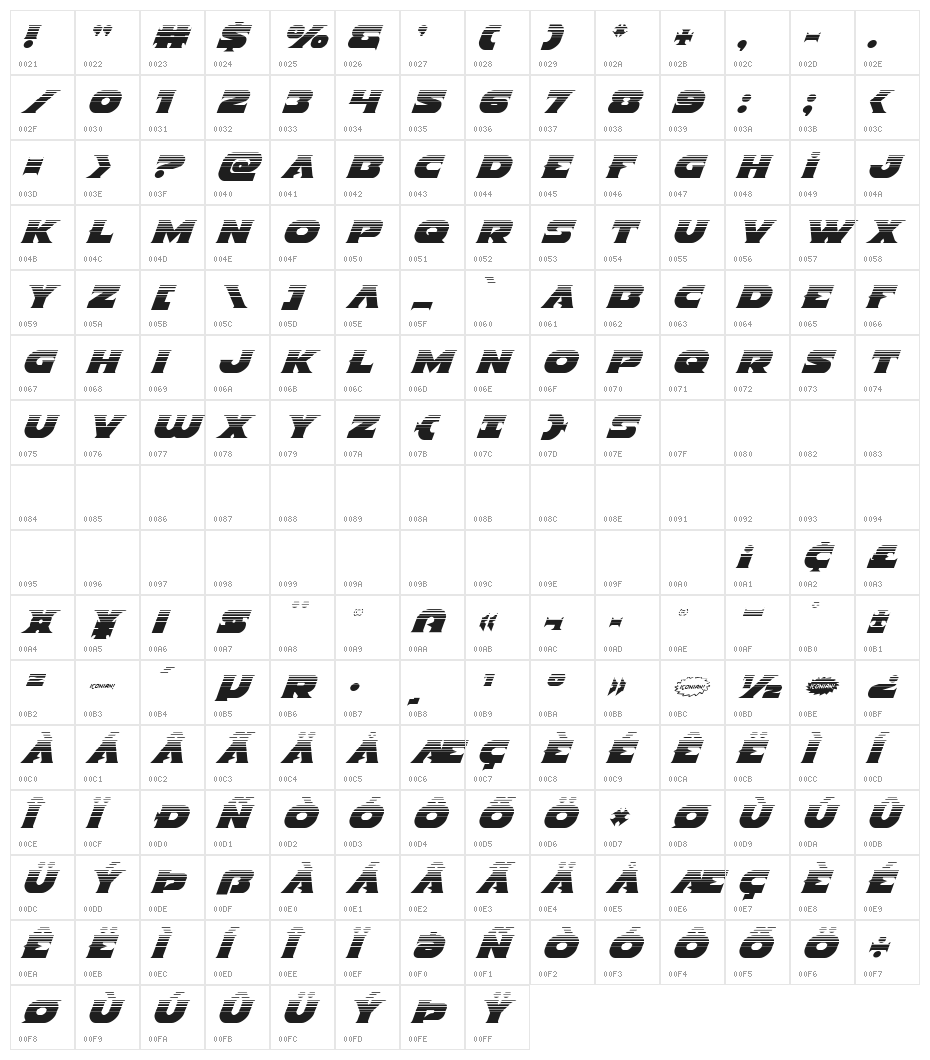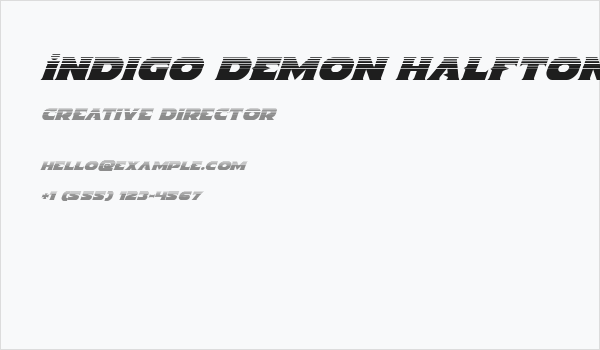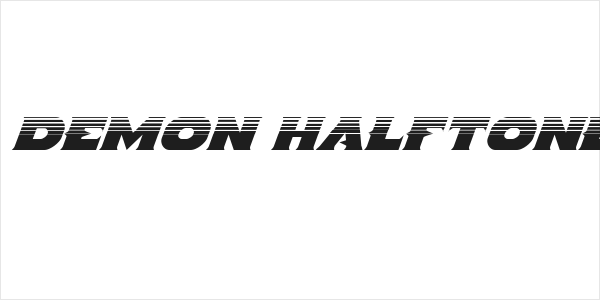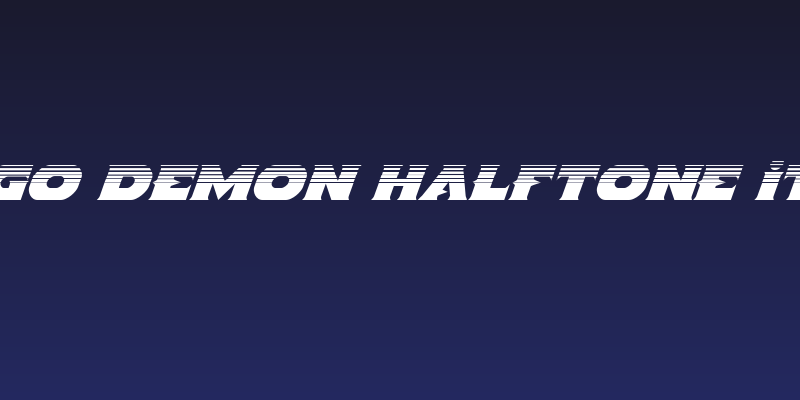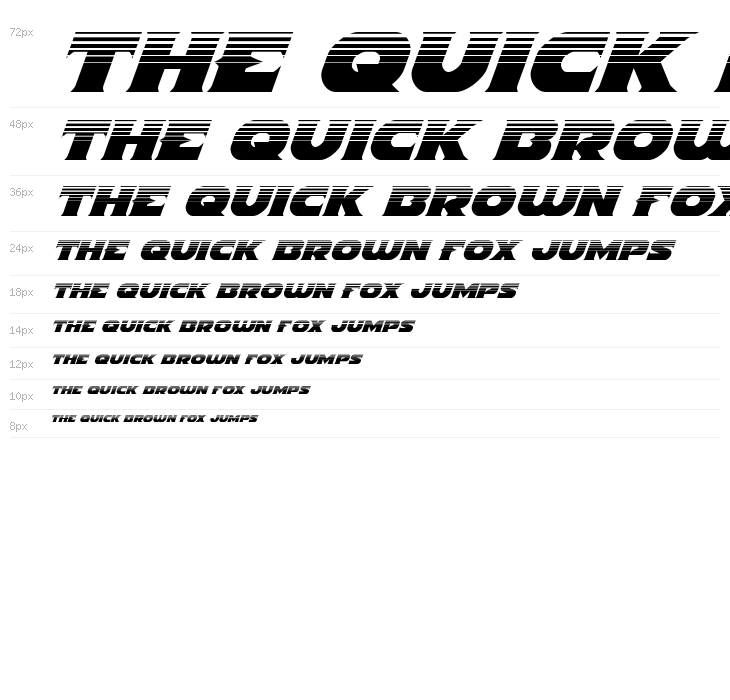
Indigo Demon Halftone Italic Font
Indigo Demon Halftone Italic Description
This font features a bold, dynamic style with a halftone effect that gives it a sense of movement and energy. The italicized letters are designed with a forward slant, enhancing the impression of speed and modernity. The characters are constructed with thick strokes and a unique striped pattern that adds a layer of depth and texture. This font is ideal for projects that require a futuristic or edgy aesthetic, making it suitable for branding, posters, and digital media. The uppercase and lowercase letters maintain a consistent style, while the numerals and special characters are equally bold and distinctive.
| Proposed Projects | Ideal for branding, posters, digital media, and projects requiring a futuristic or edgy look. |